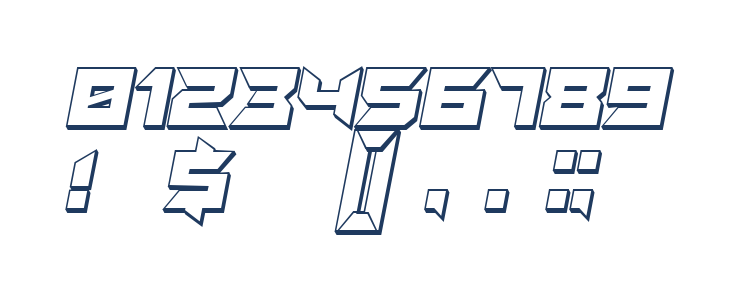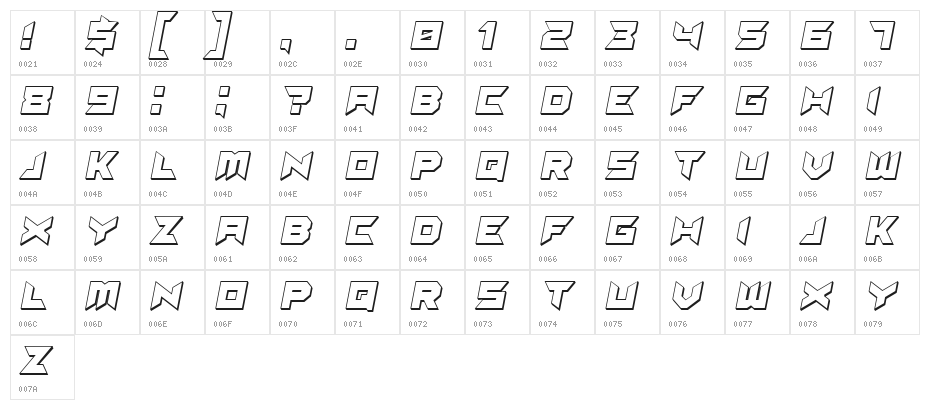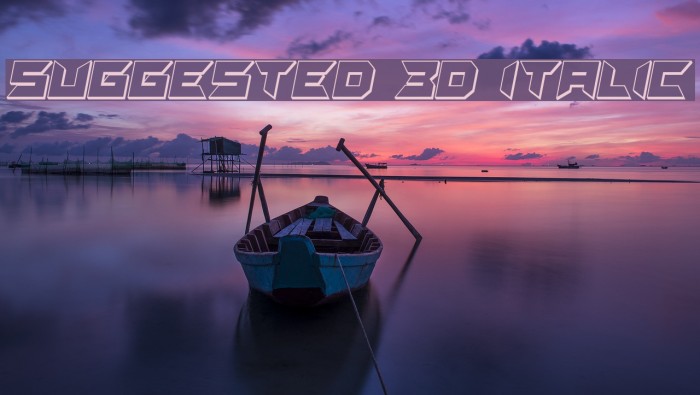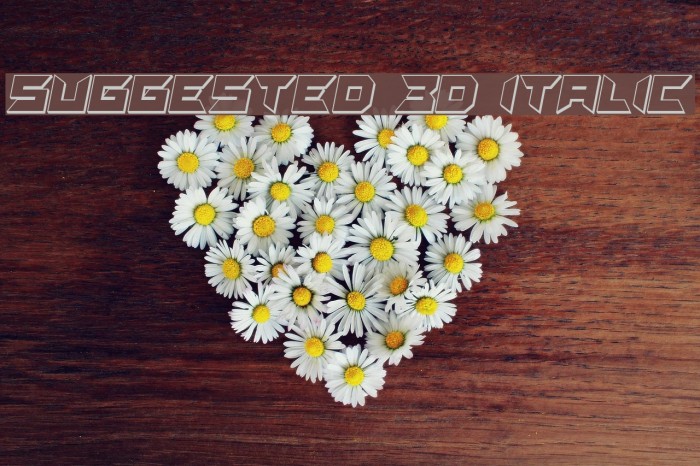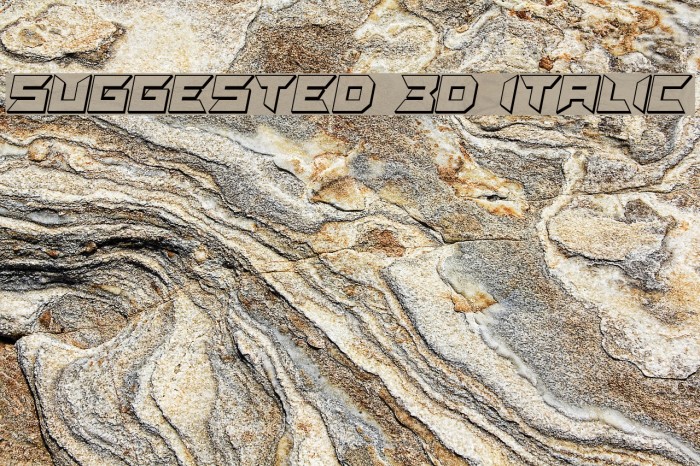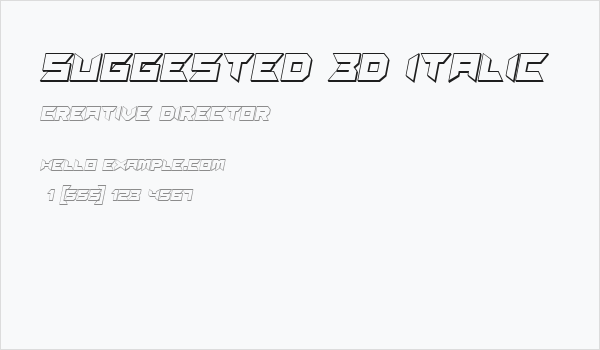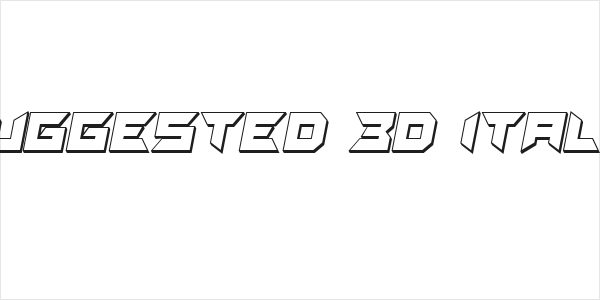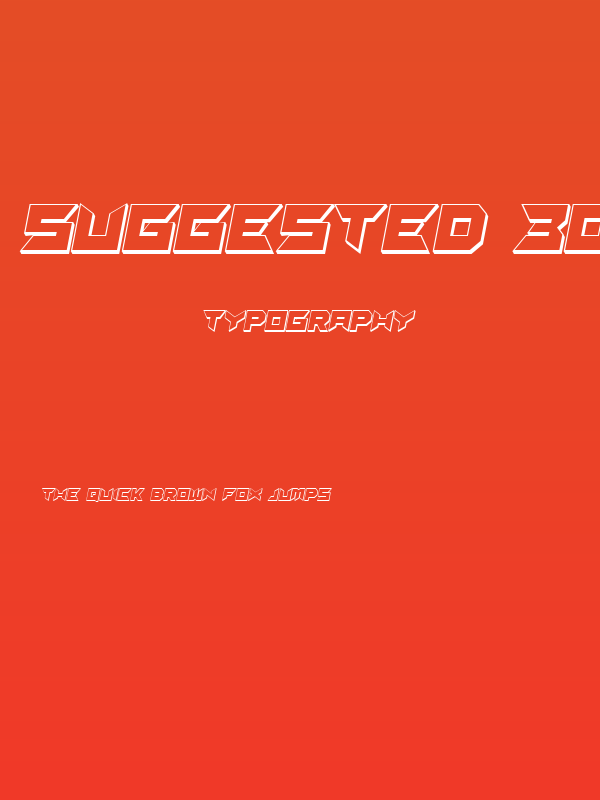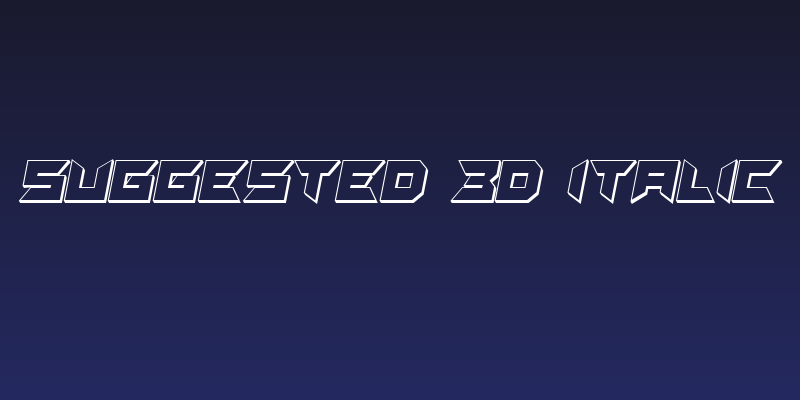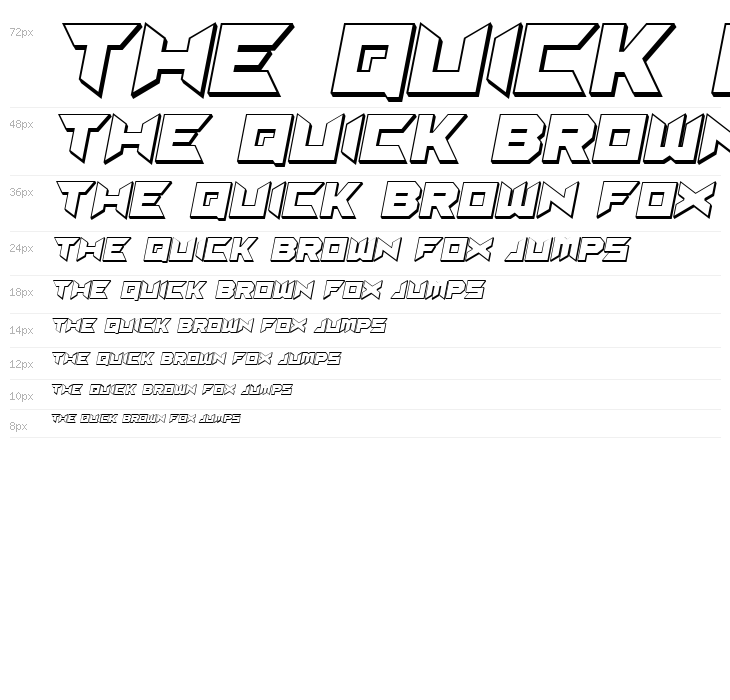
Suggested 3D Italic Font
Suggested 3D Italic Description
This font features a bold, three-dimensional design with an italic slant, giving it a dynamic and futuristic appearance. The characters are outlined, creating a striking contrast between the thick, solid lines and the white space within. The geometric shapes and sharp angles contribute to a modern and edgy style, making it stand out in any design. The uppercase and lowercase letters maintain a consistent style, while the numbers and special characters are equally bold and impactful. This font is ideal for projects that require a strong visual presence.
| Proposed Projects | Ideal for video game titles, tech branding, posters, and futuristic designs. |